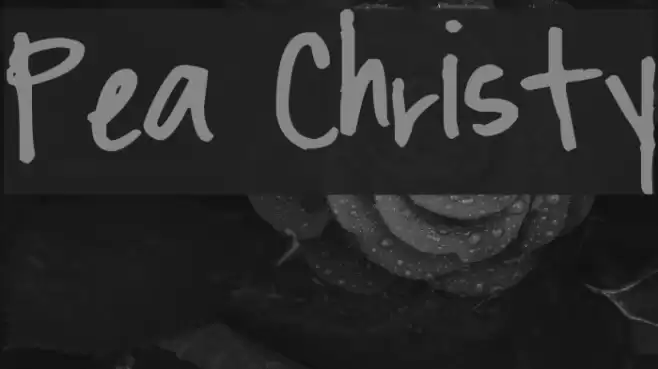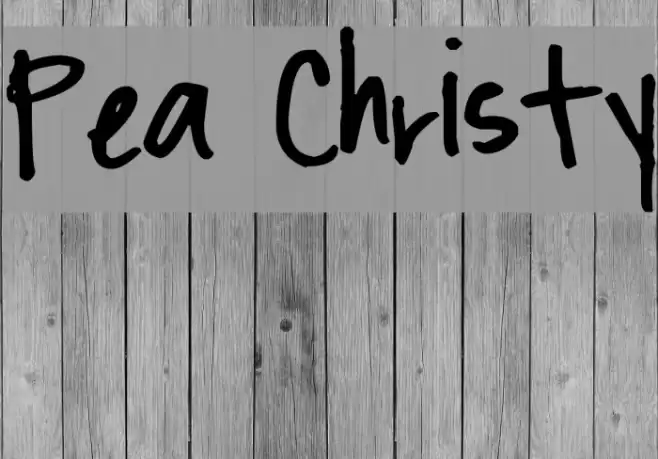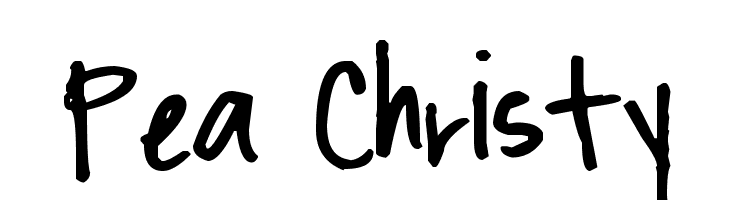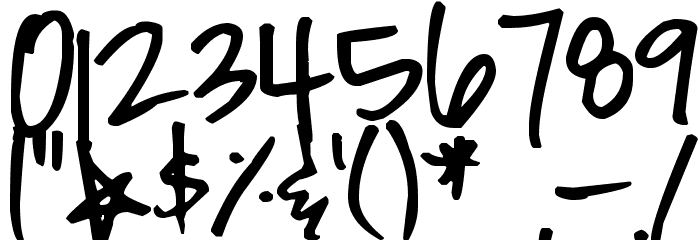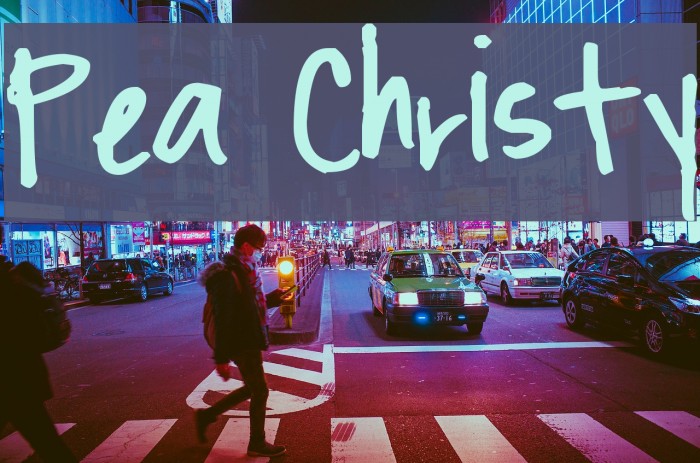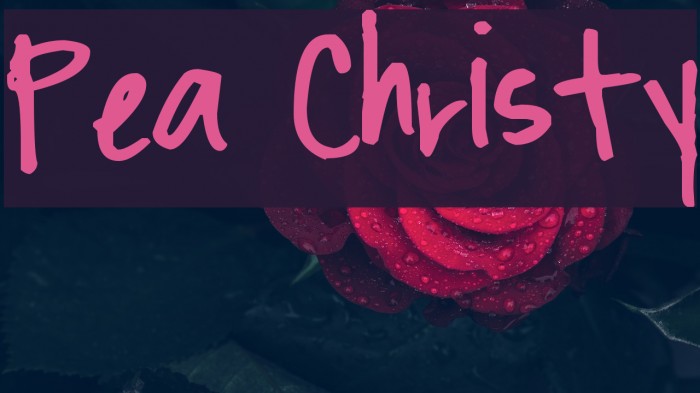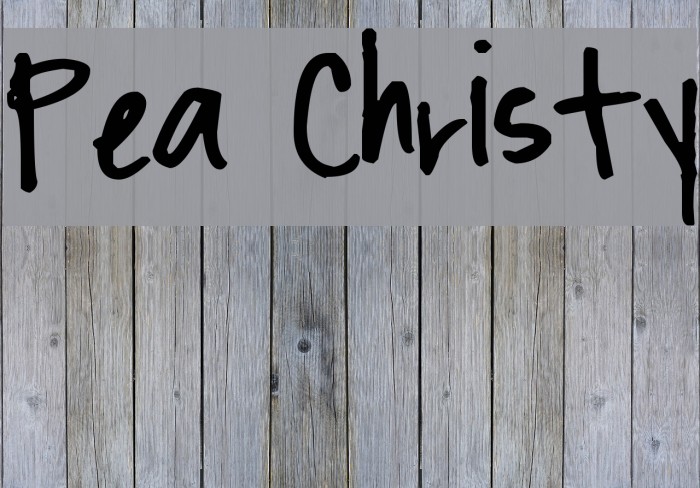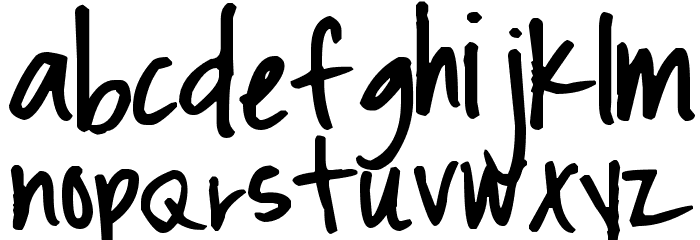
Pea Christy Font
Pea Christy Description
This playful and energetic font captures the essence of casual handwriting with its bold, free-flowing strokes. Each character is uniquely crafted, giving a personal and informal touch. The letters are slightly irregular, adding to the charm and authenticity of a handwritten note. The uppercase and lowercase letters maintain a consistent style, while the numbers and special characters blend seamlessly into the overall design. This font is perfect for projects that require a personal, approachable feel, such as invitations, greeting cards, and creative branding.
A playful, handwritten font with bold, free-flowing strokes from Uncategorized fonts.
- Proposed Projects: Ideal for invitations, greeting cards, personal branding, and creative projects.
- Overall Style: Casual, Playful
- Use Case: Headlines, Logos, Informal Text